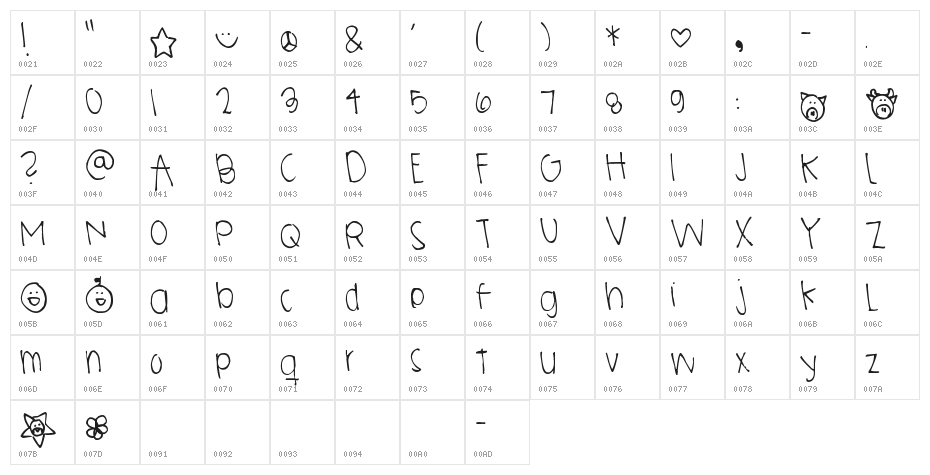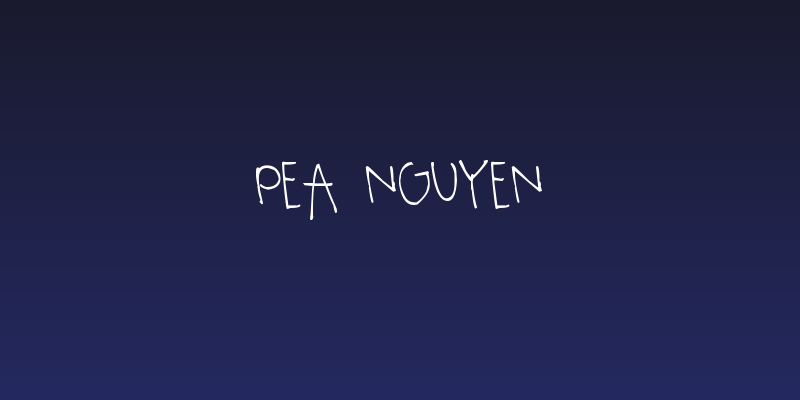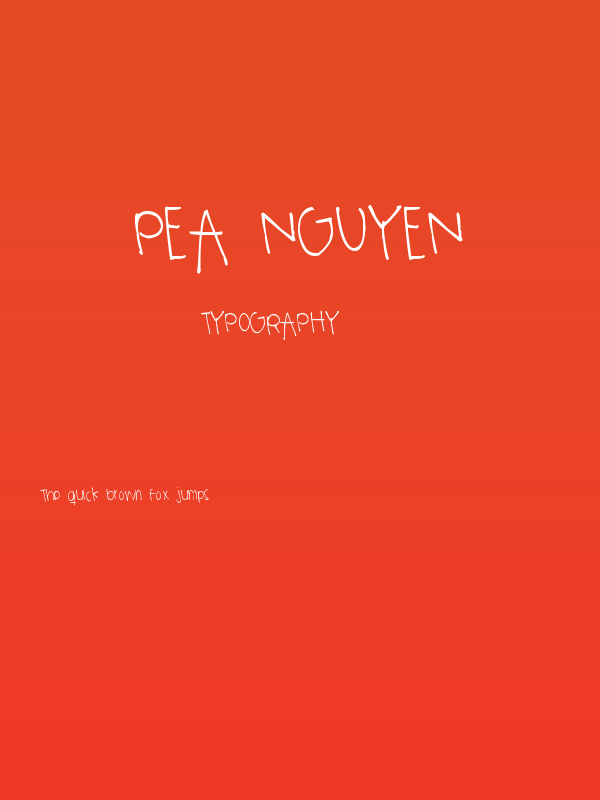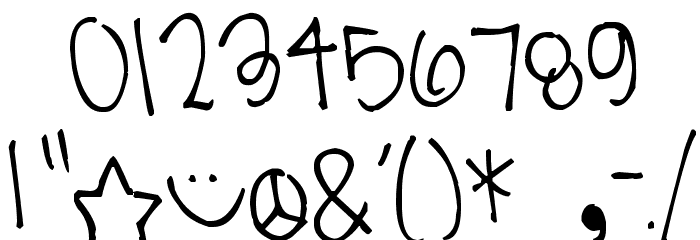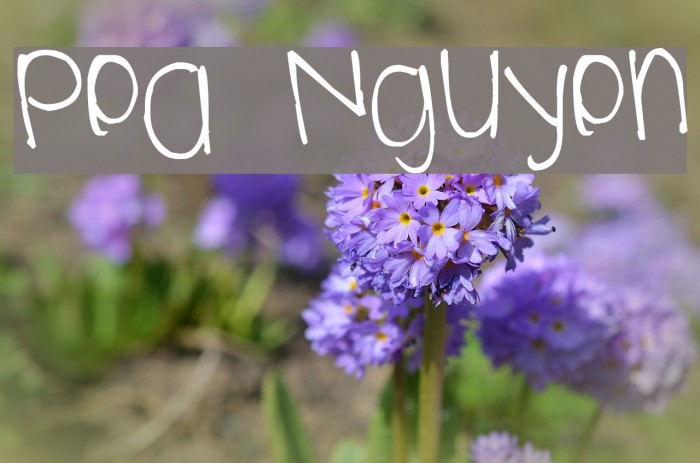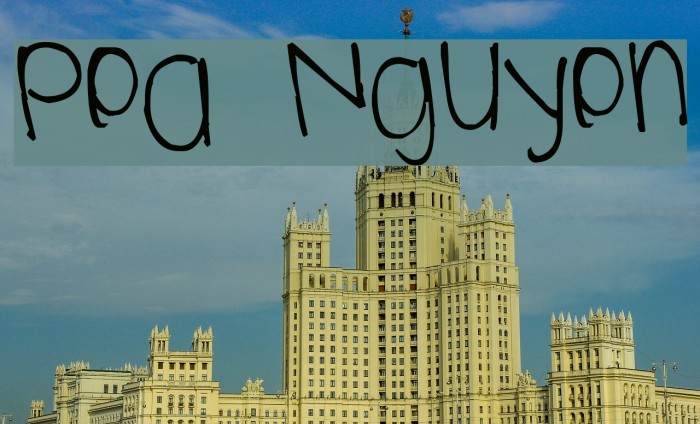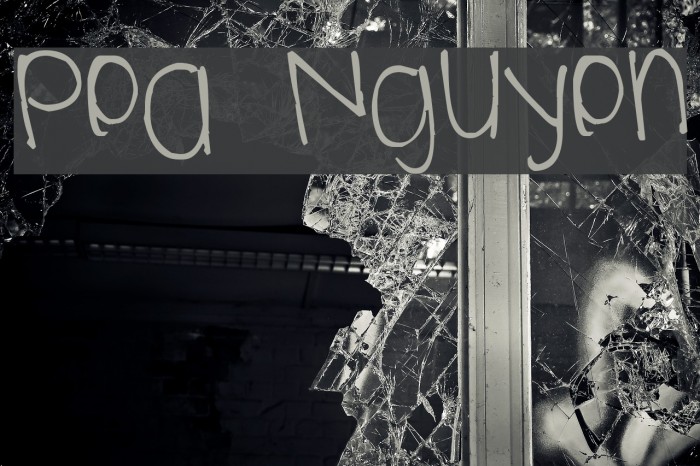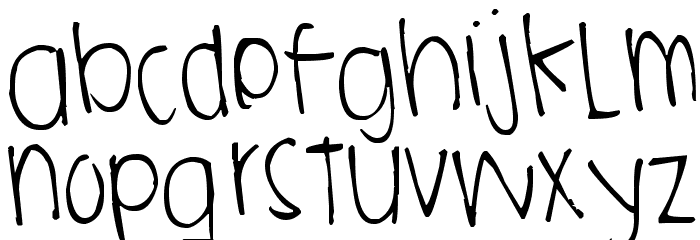
Pea Nguyen Font
Pea Nguyen Description
This playful and whimsical handwritten font features irregular strokes and a casual, friendly appearance. The letters are slightly uneven, giving it a natural and organic feel, reminiscent of a personal note or doodle. The uppercase and lowercase letters maintain a consistent style, with rounded edges and a slight tilt, adding to its informal charm. Numbers and special characters are crafted with the same playful touch, making this font versatile for creative projects. Its unique style is perfect for adding a personal touch to designs, evoking a sense of warmth and approachability.